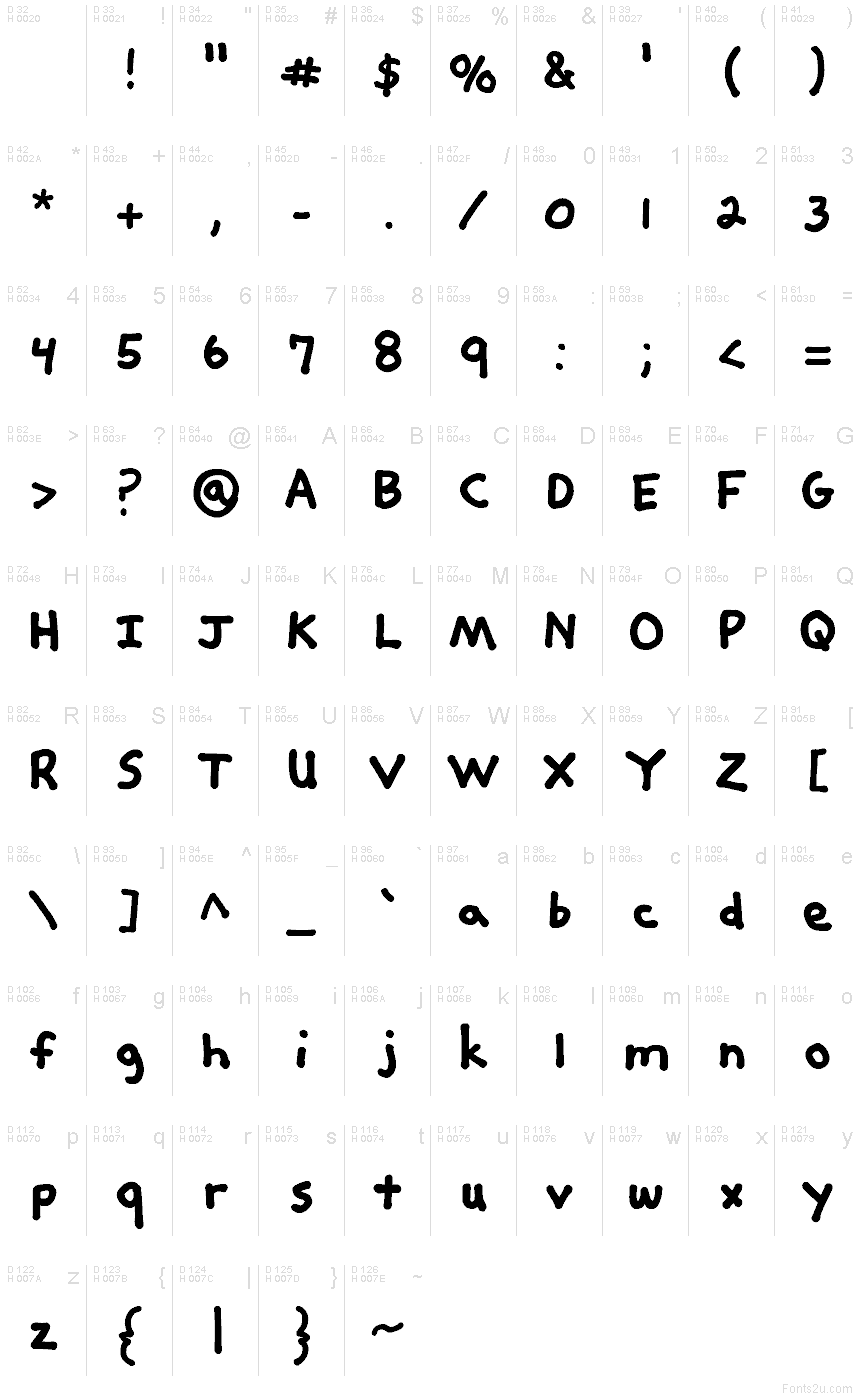
Toddworld rg
Toddworld font by Élise Benoît Fonts is a free cartoon display typeface with a bouncy, hand‑inked rhythm. Its chunky strokes, soft corners, and playful wobble feel like a thick marker sliding across paper—cheerful, legible, and impossible to take too seriously. The letters hug each other with friendly spacing that stays readable even at small sizes.
Using Toddworld, playful projects pop without extra decoration. Try it on kids’ book covers, classroom posters, birthday invitations, toy packaging, summer camp flyers, and cheerful social graphics. This free font shines when you keep headlines big and breezy; pair it with a clean rounded sans for body text to keep the message crisp and sunny.